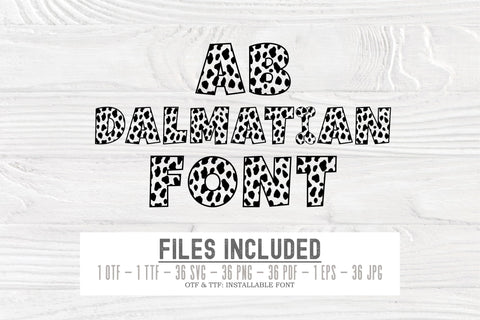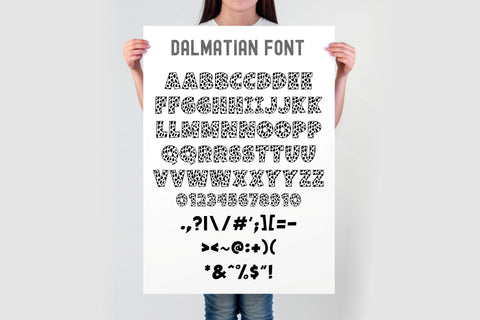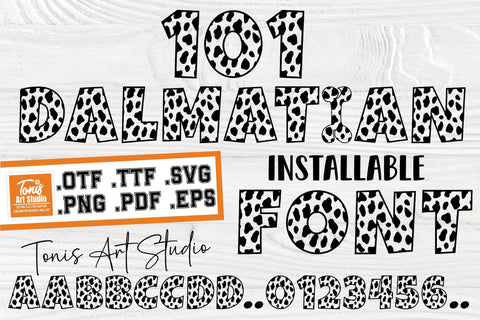
Dalmatian Font SVG, Installable Font, 101 Dalmatian Alphabet
Introducing the 101 Dalmatian Font & Cut Files Bundle!
This playful and unique Dalmatian-inspired font features bold, spotted letters and numbers that are perfect for a variety of creative projects. Whether you're making t-shirts, mugs, birthday cards, or party decorations, this font is versatile and fun. The font package includes both installable fonts (OTF & TTF) and cut files, giving you the flexibility to use them across a range of applications.